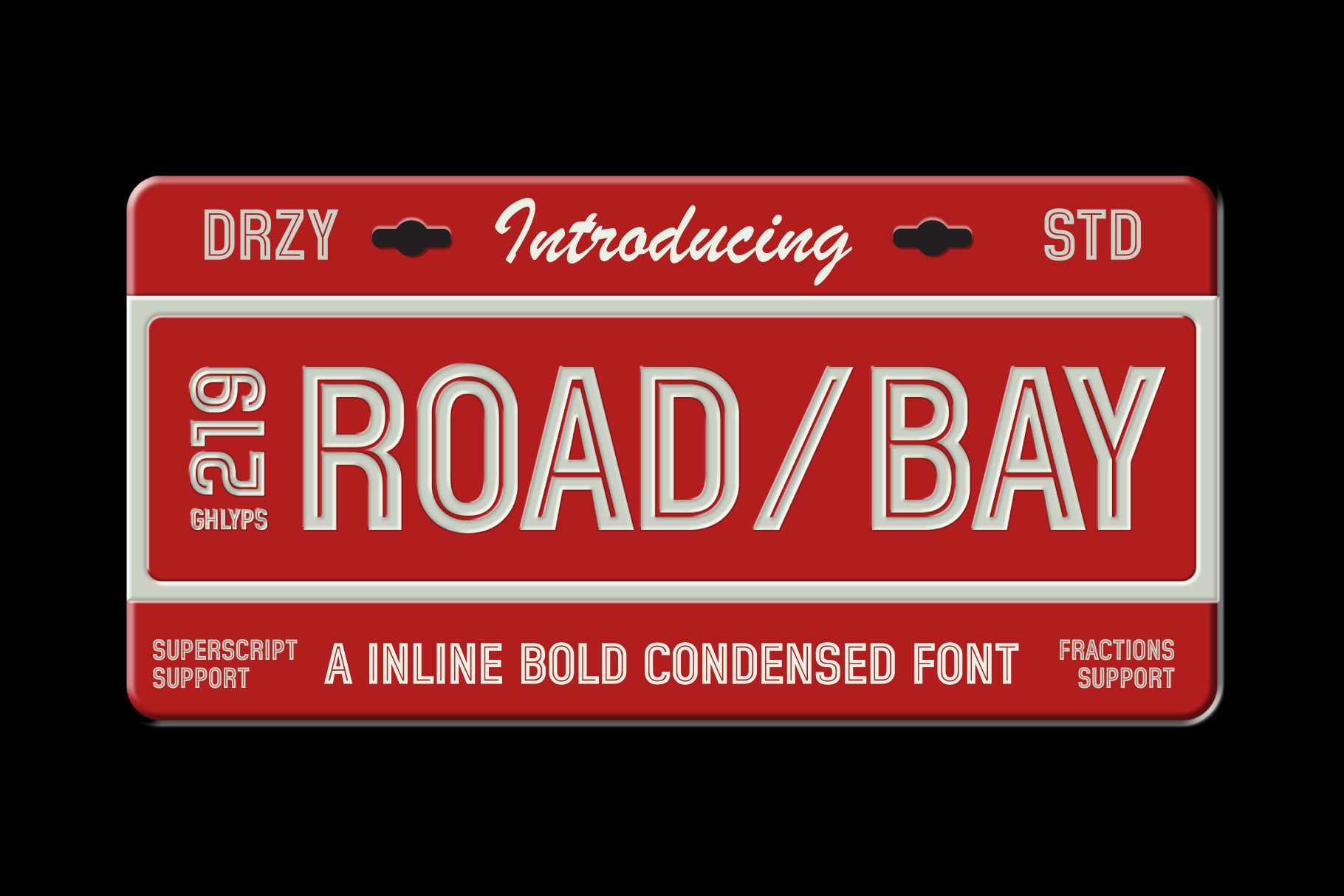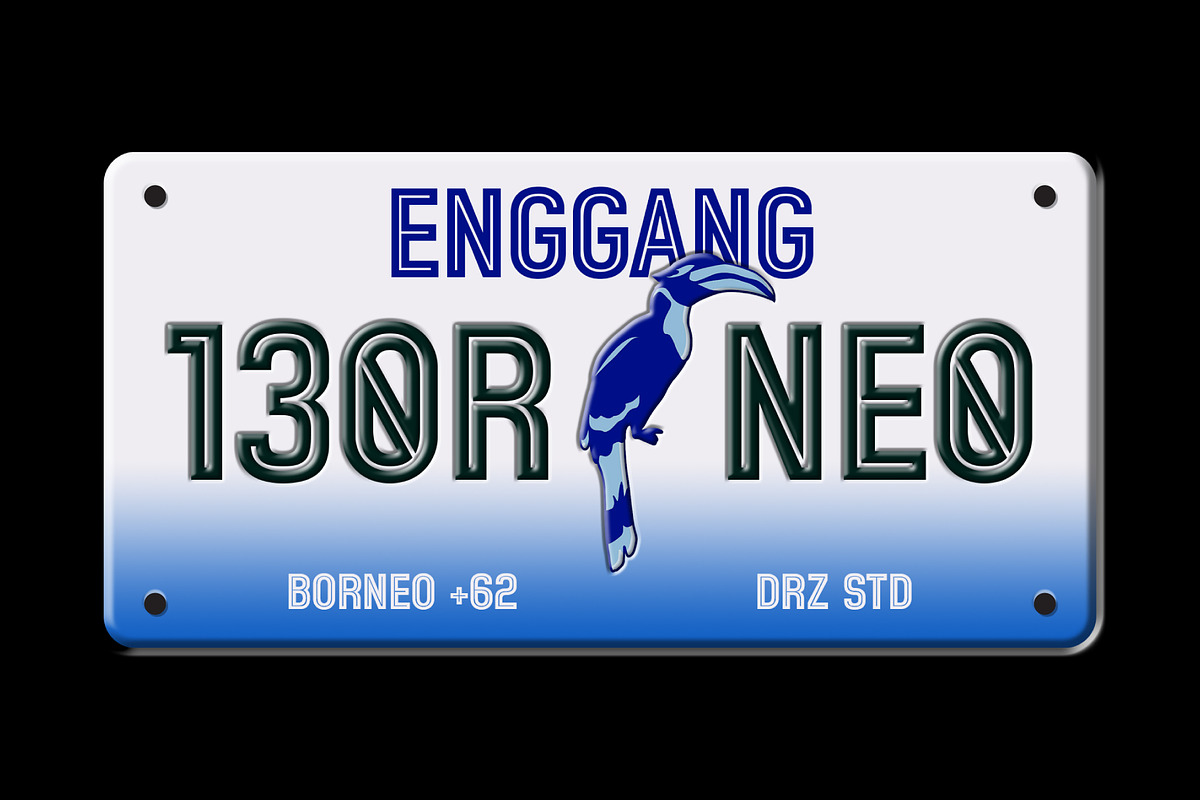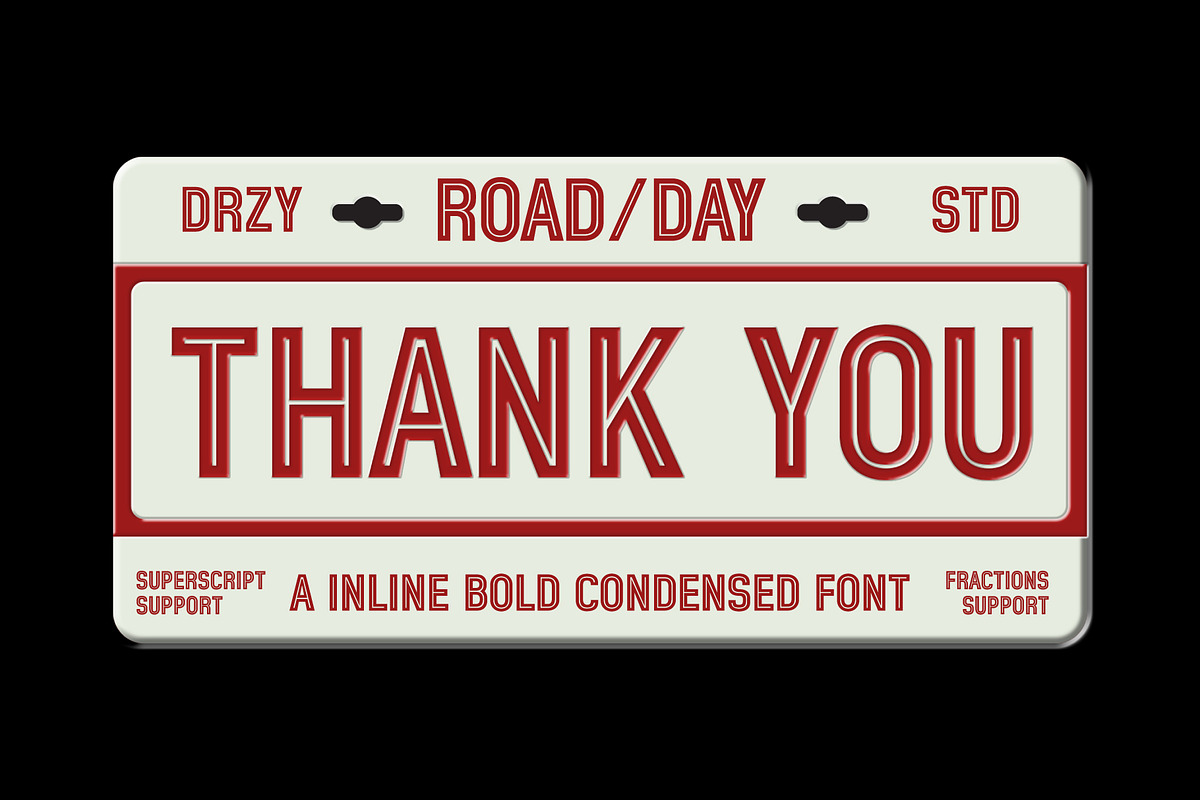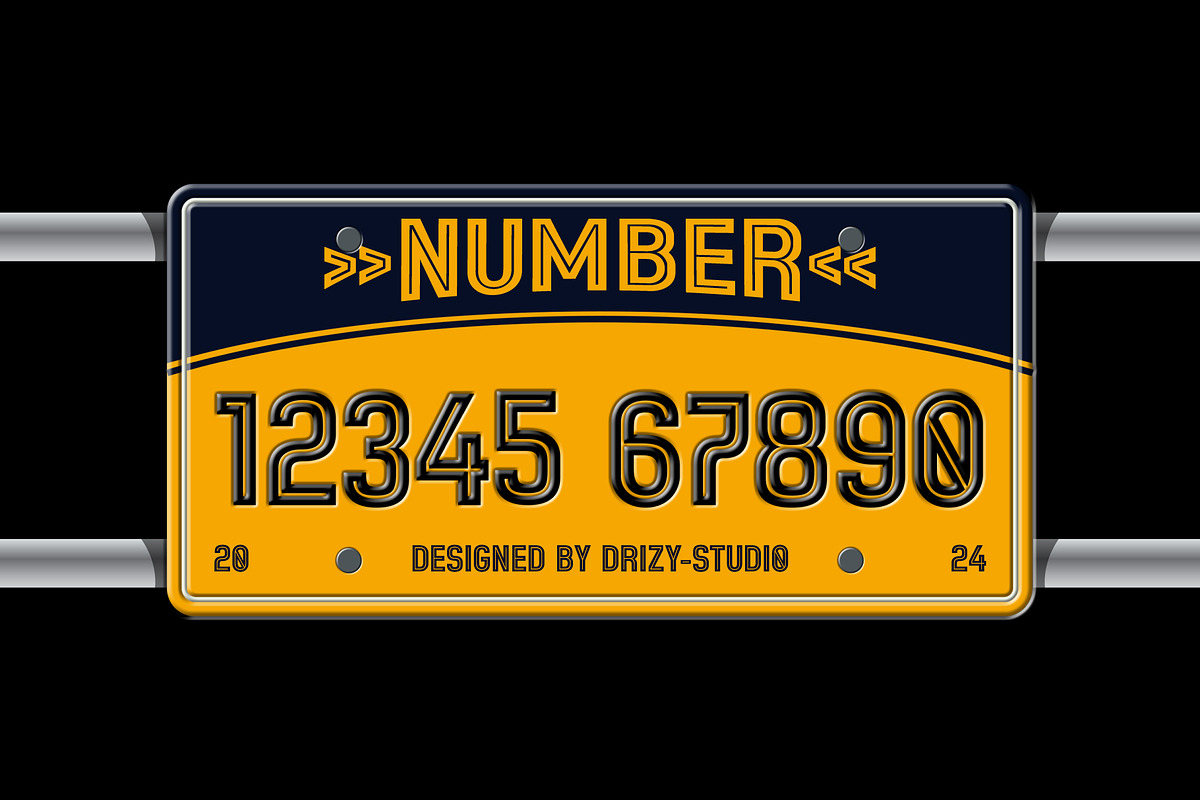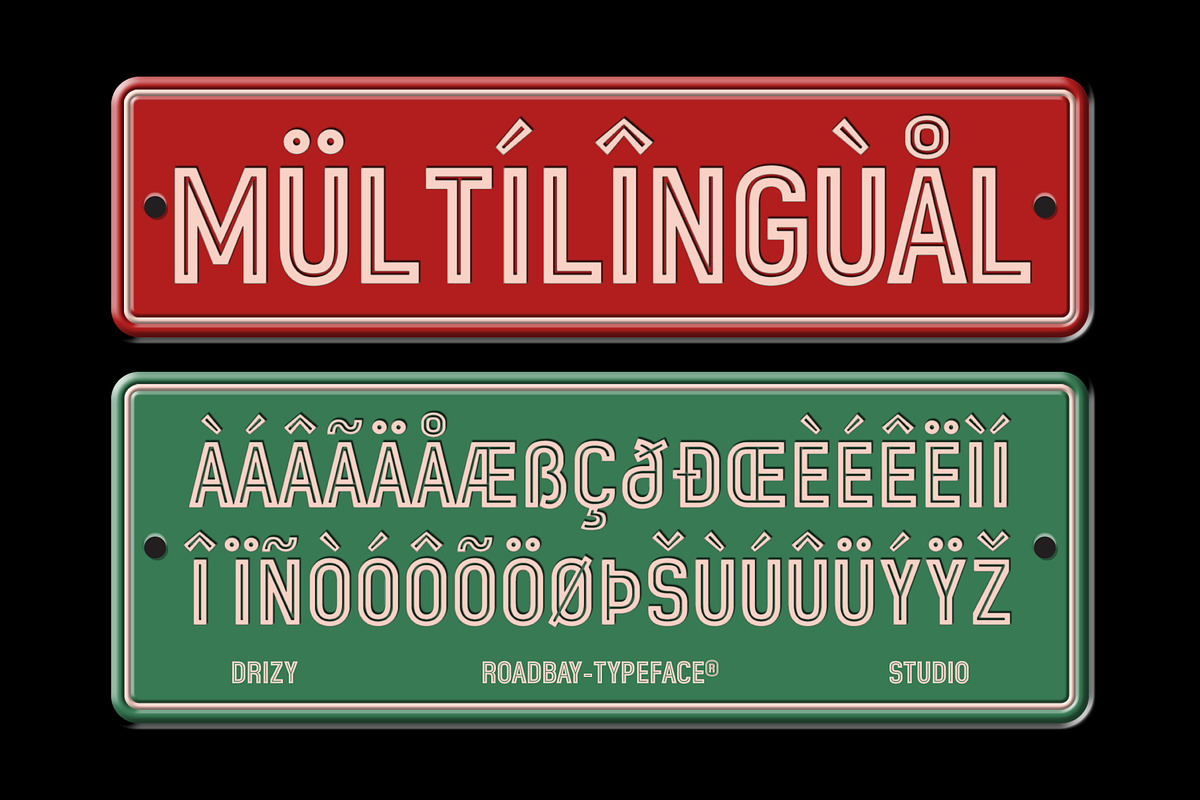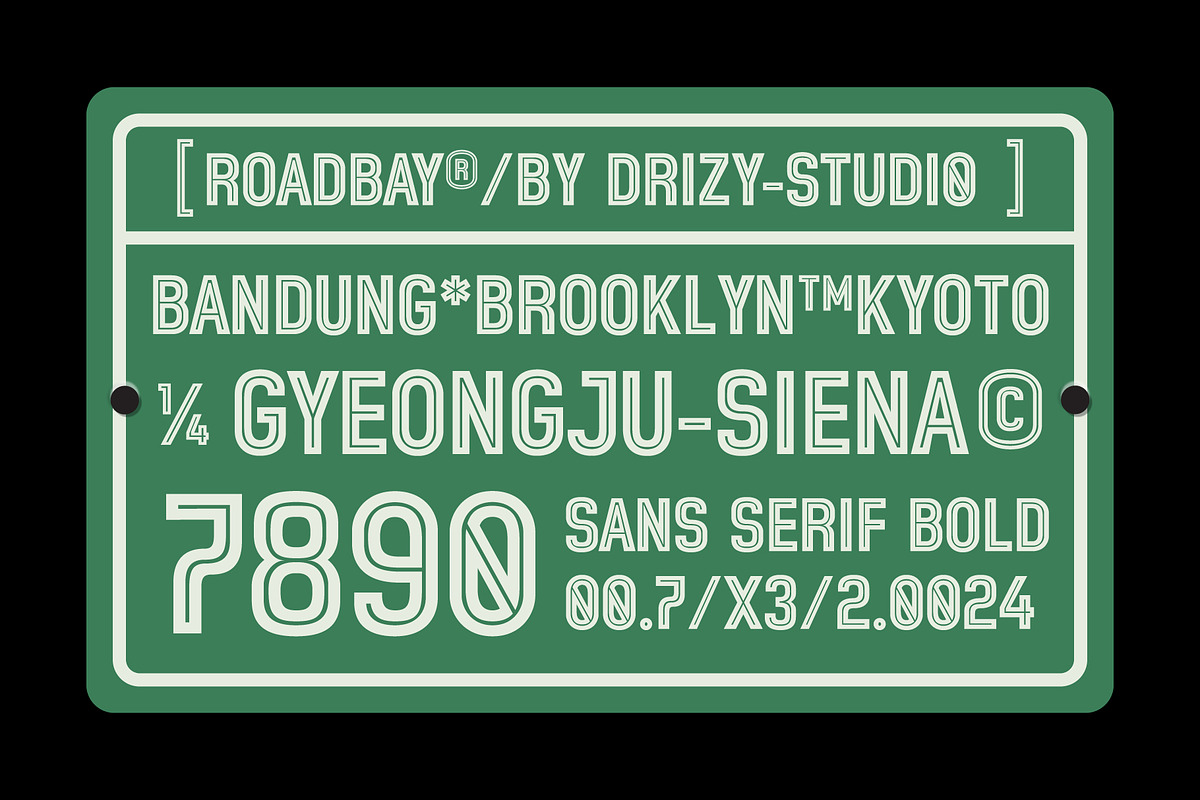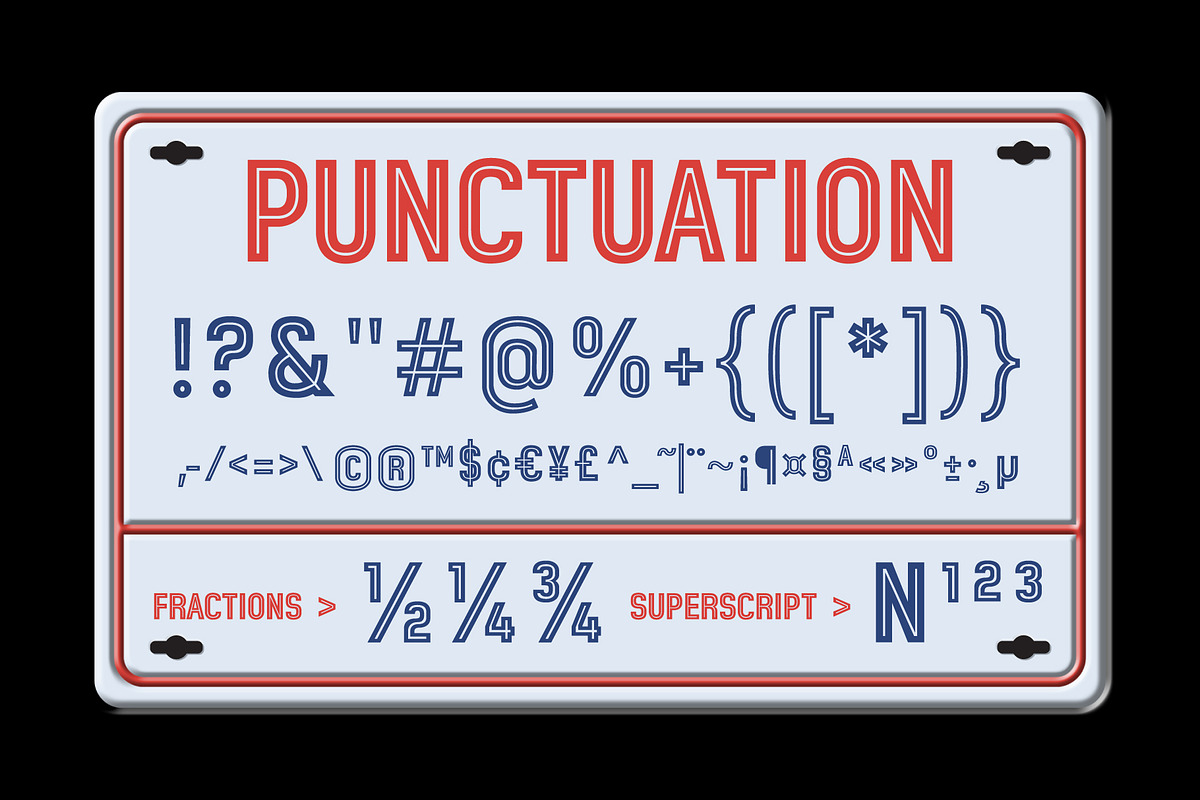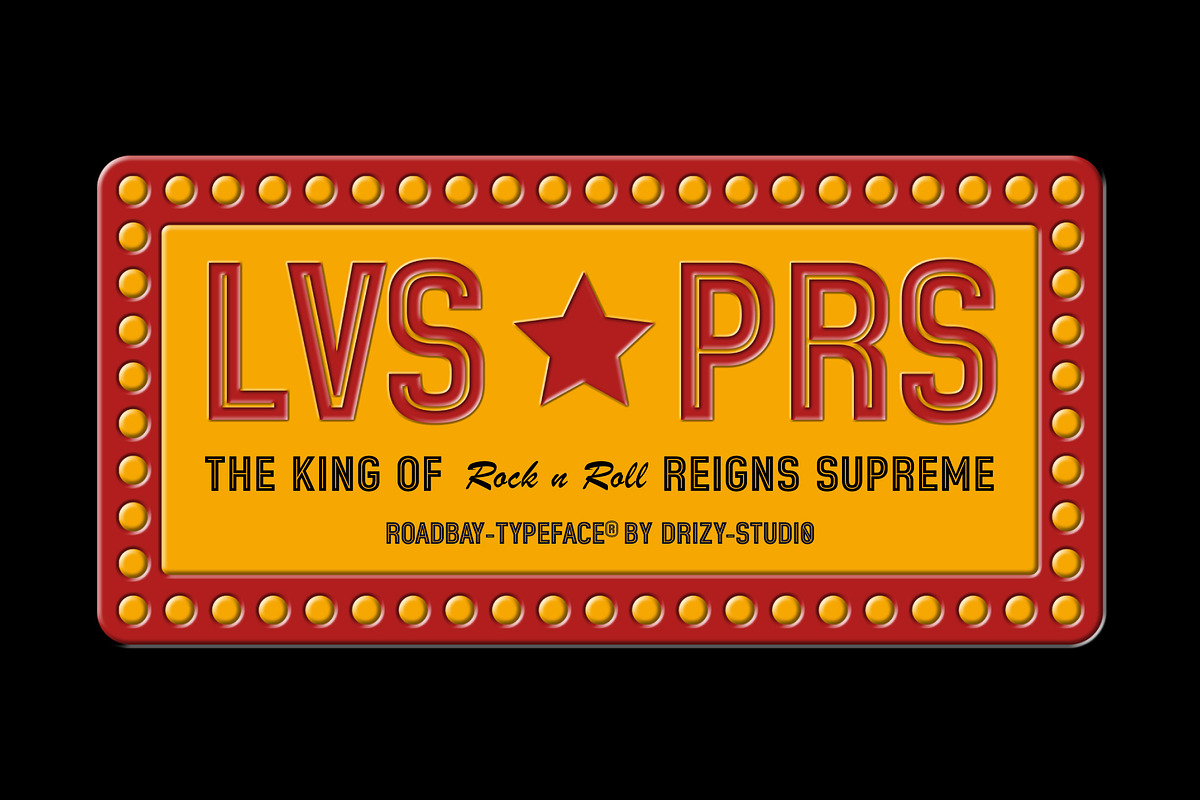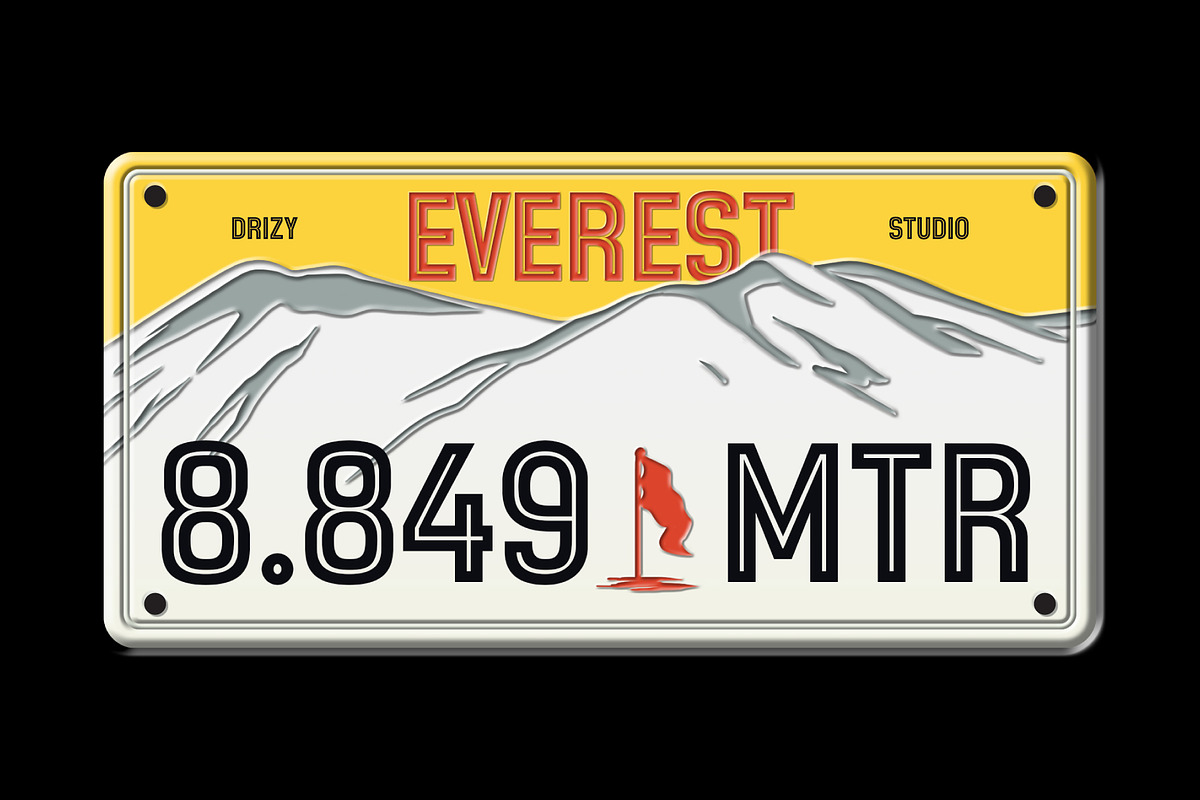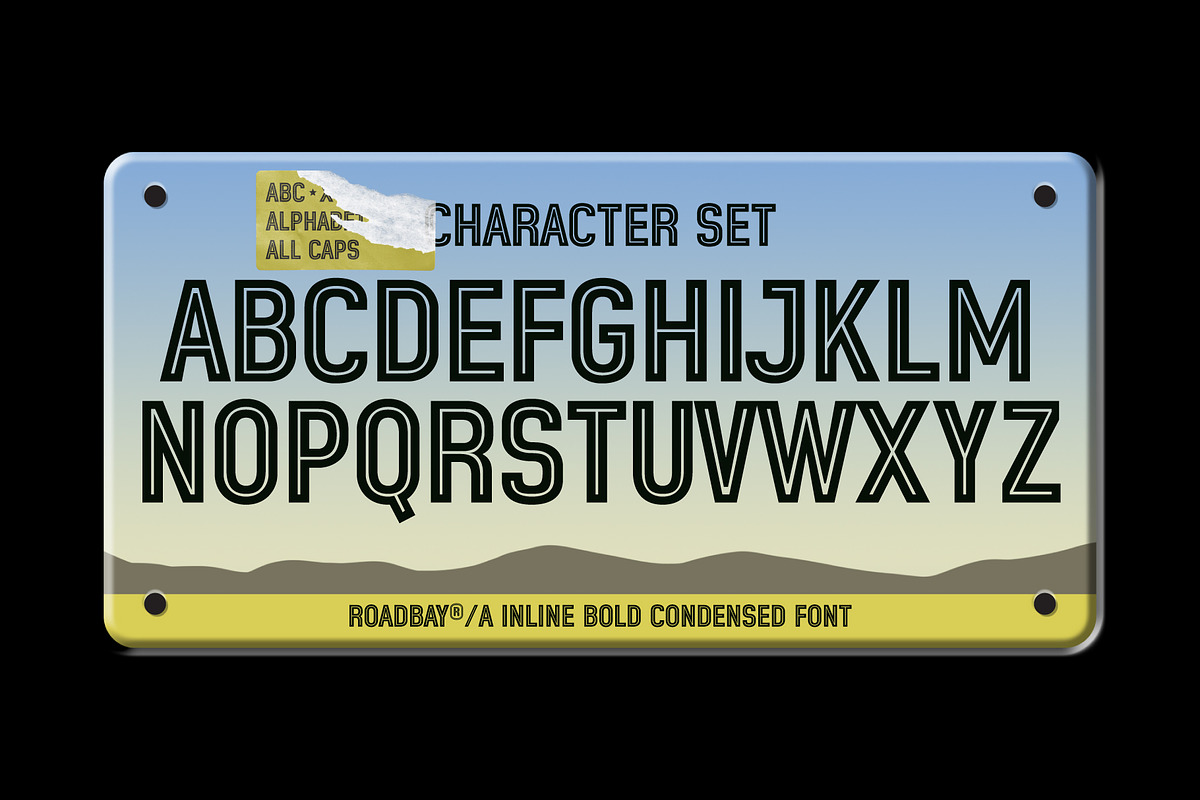
Roadbay - Inline Bold Condensed Font
Introducing Roadbay Inline Bold Condensed: the font that will redefine your designs with its sleek, bold, and dynamic character. Perfectly crafted for those who are unafraid to make a statement, Roadbay Inline Bold Condensed embodies modernity and efficiency, offering a blend of sophistication and readability that's hard to find.
Roadbay features: Character Set Punctuation & Numbers Multilingual
Elevate and explore the design possibilities with this License Plate Font!